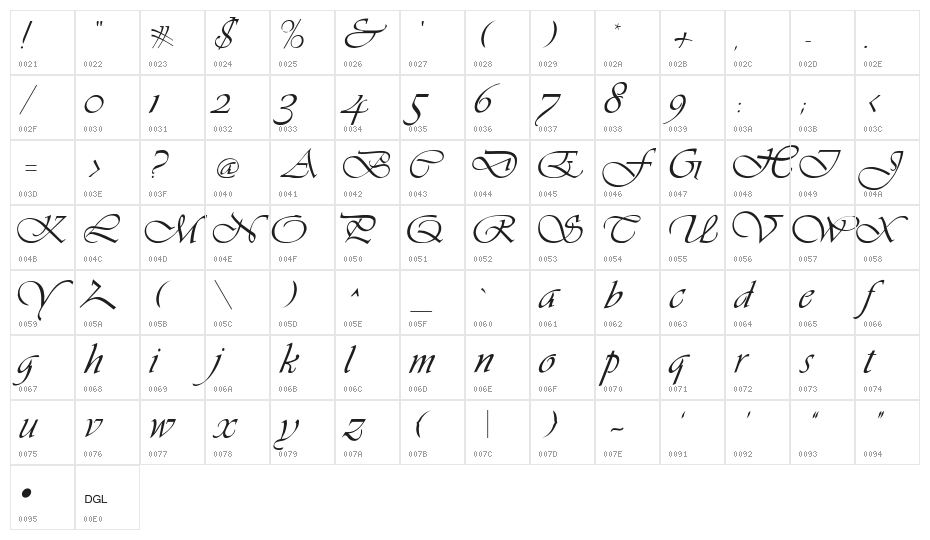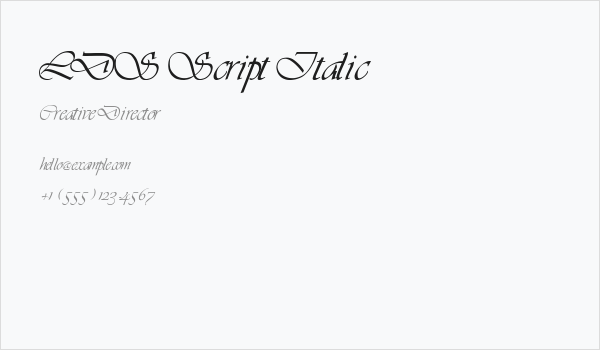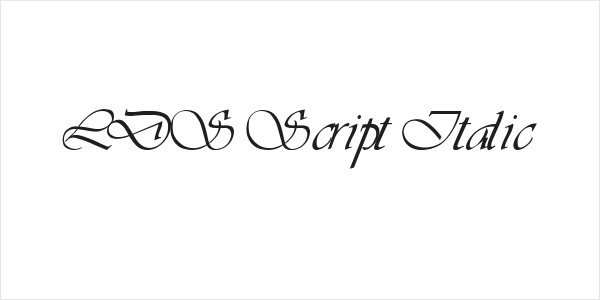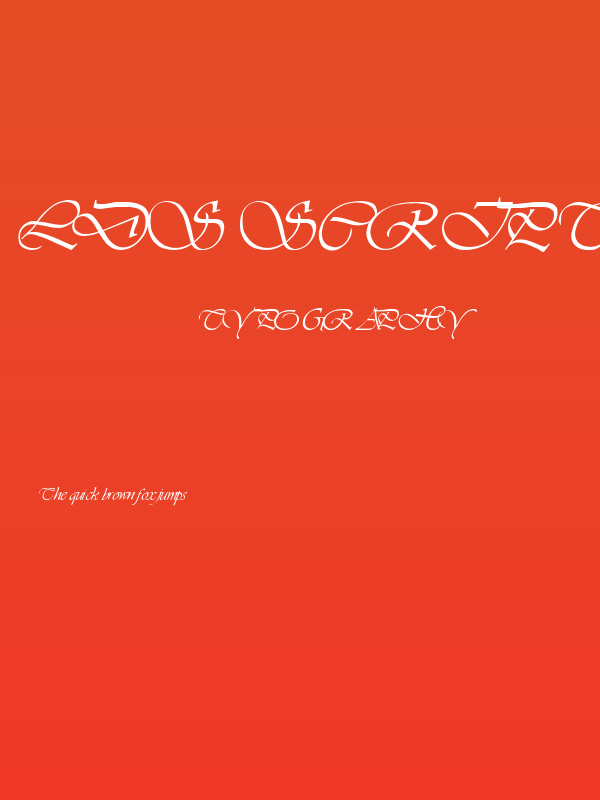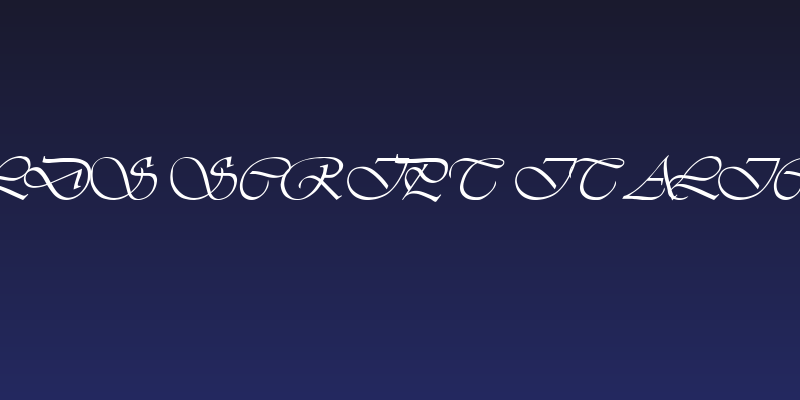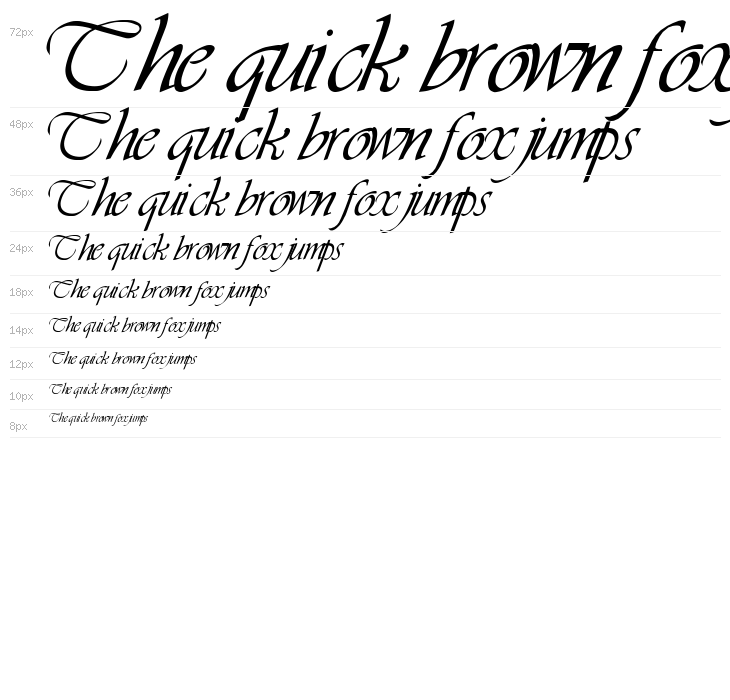
LDS Script Italic Font
LDS Script Italic Description
This font exudes elegance and sophistication with its flowing, cursive style. The letters are intricately designed, featuring smooth curves and delicate flourishes that give it a refined, artistic appearance. The uppercase letters are particularly ornate, with elaborate swashes and loops that add a touch of grandeur. The lowercase letters maintain a graceful continuity, making it ideal for creating a seamless, handwritten effect. The numerals and special characters are equally stylized, ensuring consistency across all elements. This font is perfect for projects that require a touch of class and elegance, such as wedding invitations, formal event programs, or luxury branding.
| Overall Style | Elegant, Artistic |
| Use Case | Logos, Invitations, Decorative text |
| Proposed Projects | Ideal for wedding invitations, luxury branding, formal event programs, and artistic designs. |